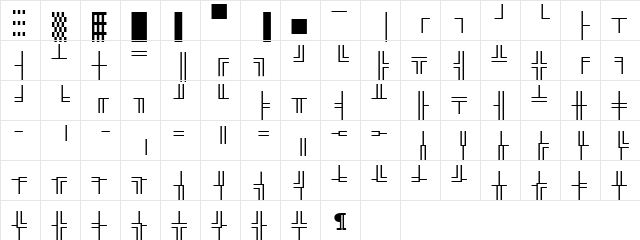
LotusWP Box Roman
Design Context for LotusWP Box Typeface
LotusWP Box is a composed and adaptable typeface that performs quietly and consistently across a wide range of design contexts.